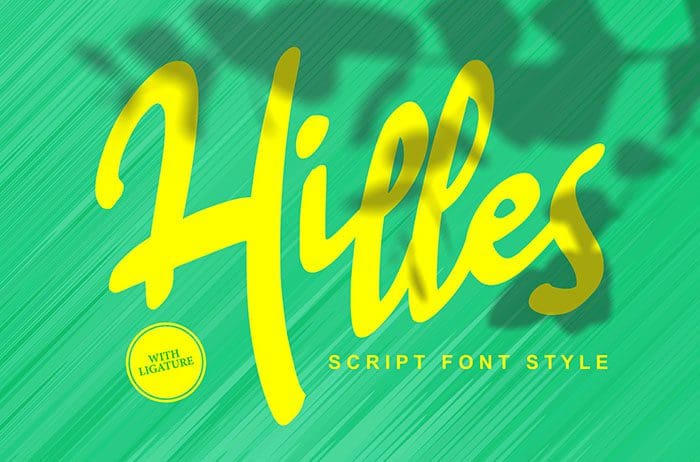
Hilles Script Font
Hilles is a gorgeous and fresh script font that radiates energy and life. Get inspired by its unique charm, and turn any design idea into a true standout. Thanks to Vunira Studio for sharing this font! Take a look at this portfolio for more of his stunning fonts.